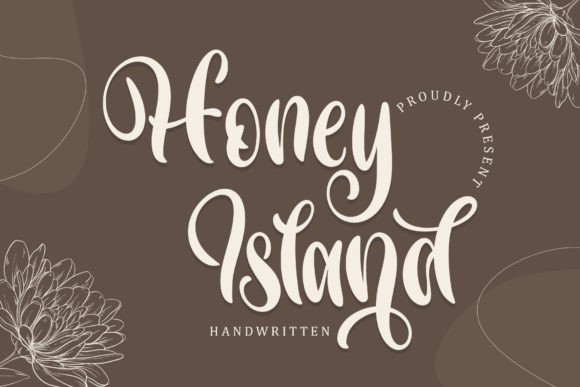
Journey into the Enchanting Realm of Honey Island Font: Where Timeless Elegance Meets Modern Charm
Immerse yourself in the world of Honey Island Font, a meticulously crafted handwritten typeface that effortlessly blends the allure of classic calligraphy with a refreshing modern touch. Its graceful strokes and elegant curves will bestow an air of sophistication and charm upon your creative endeavors, making it the perfect choice for those seeking to elevate their designs.
- Font Name: Honey Island Font
- Font Family: Script
- Created by Sakha Design
Designed with a keen eye for detail, Honey Island Font exudes a timeless beauty that will effortlessly complement your projects. Its versatility extends across a wide range of applications, making it an ideal choice for:
- Wedding Invitations: Infuse your wedding stationery with a touch of romance and elegance as Honey Island Font gracefully adorns your invitations. Its intricate details will create a lasting impression on your guests.
- Logos and Branding: Establish a distinct identity for your brand with Honey Island Font. Its classy calligraphic style will add a touch of sophistication to your logo, business cards, and marketing materials.
- Social Media Graphics: Engage your audience with visually captivating social media posts and graphics created using Honey Island Font. Its unique charm will make your content stand out from the crowd.
- Lettering and Artwork: Unleash your creativity and craft stunning lettering pieces and heartfelt artwork using Honey Island Font. Its expressive nature will transform your words into works of art.